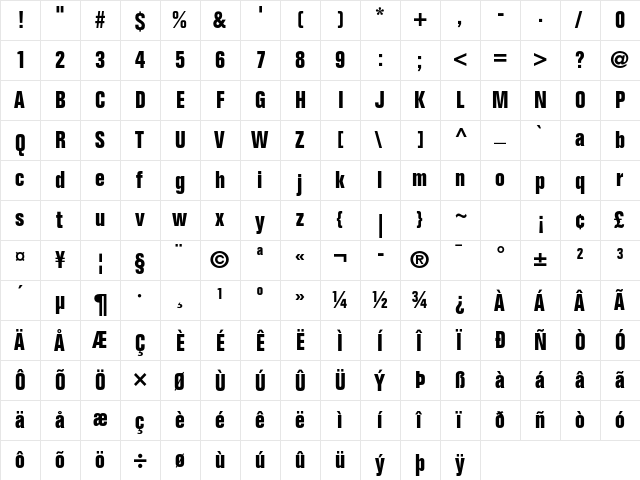
Folio Std Bold Condensed
| Designer | Konrad F. Bauer, Walter Baum |
Design Context for Folio Std Typeface
Folio Std takes a measured approach to typography — its balanced proportions and neutral character make it a reliable workhorse for both digital and print work. The heavy weight commands attention and anchors typographic hierarchies. Its narrow stance lets it pack a punch even in space-constrained designs.